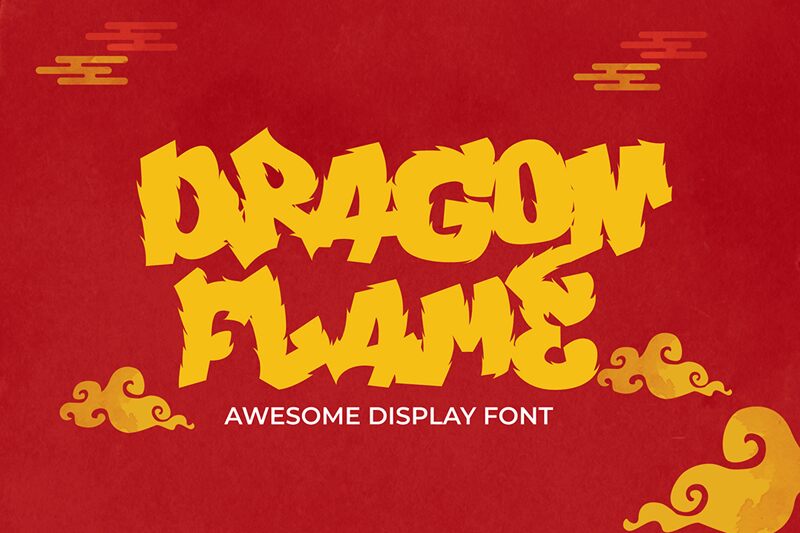
Dragon Flame font by Cikareotype Studio is a graffiti-inspired, free font tailored for those who dare to defy boundaries. Channeling the rebellious energy of urban street art, this typeface captures the eye with its captivating curves and edgy style. It’s the perfect choice for projects that yearn to evoke raw, unfiltered emotion while making a statement that cannot be ignored.
Unleash its potential in wall art, posters, album covers, tattoos, and games, where it can shine as the main element of the composition. Hip-hop culture brands, urban museums, music events, or comics can also find inspiration in its crazy designs, signing their logos with a typical street art writing style.